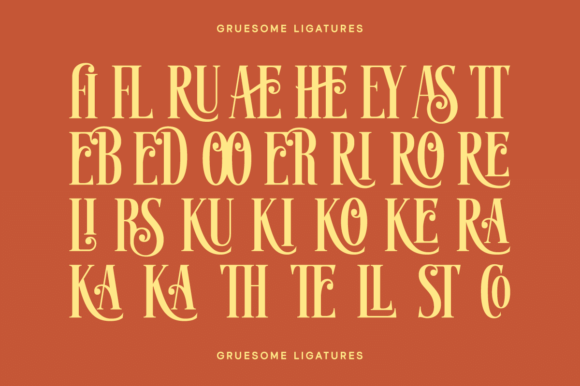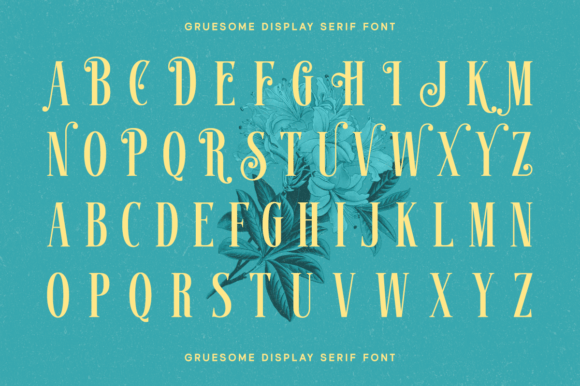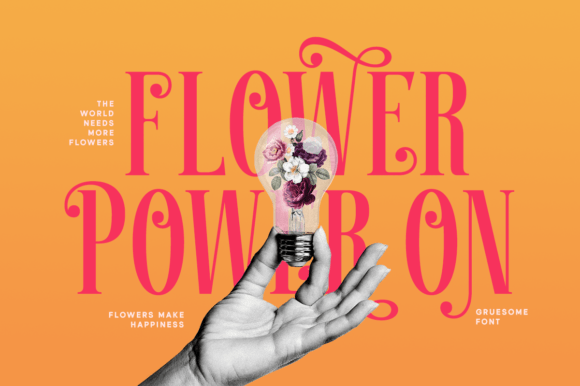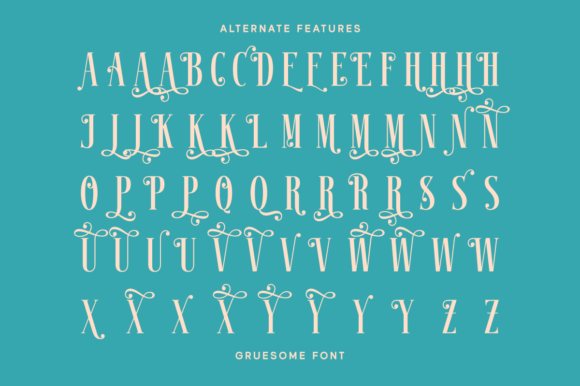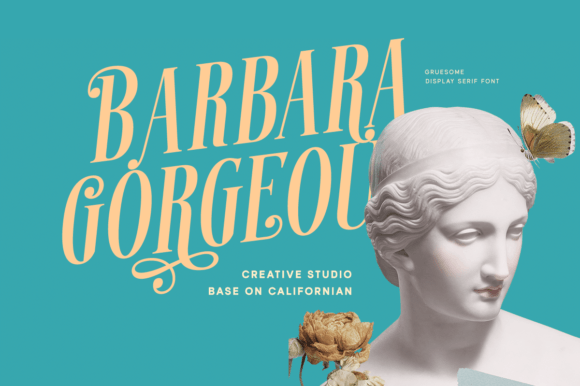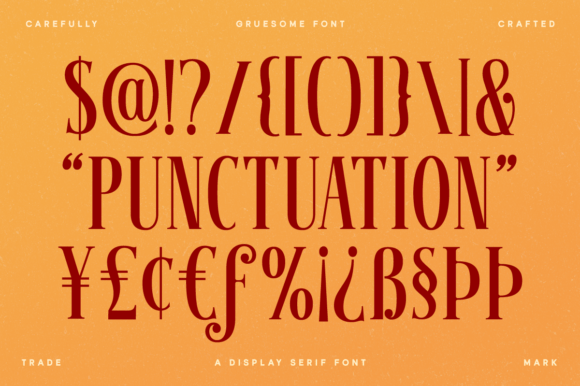
Introducing Gruesome: A Vintage-Inspired Serif Font for Creative Projects
In the world of typography, a font can make or break a design. For designers and crafters looking for a unique and eye-catching serif font, look no further than Gruesome. This stunning font boasts vintage looks, complete with stylistic alternates and ligatures that make it truly one-of-a-kind. Whether you’re working on a logo, invitation, or advertising campaign, Gruesome is the perfect choice for adding a touch of elegance and sophistication.
What Sets Gruesome Apart
Gruesome is more than just a font – it’s an experience. With its classic serif design and vintage flair, this font is sure to transport your audience to a bygone era. The stylistic alternates and ligatures add an extra layer of depth and character, making Gruesome perfect for a wide range of creative projects. From formal invitations and wedding cards to fashion labels and packaging, Gruesome is the ultimate versatile font.
So what can you use Gruesome for? The possibilities are endless! Here are just a few ideas to get you started:
- Logos: Create a lasting impression with a custom logo that showcases your brand’s personality and style.
- Invitations: Make your guests feel special with beautifully designed invitations that set the tone for your event.
- Labels: Add a touch of sophistication to your product labels and make them stand out on store shelves.
- Magazines and Books: Use Gruesome to add a vintage touch to your publication and make it truly unforgettable.
- Greeting and Wedding Cards: Create stunning cards that will make your loved ones feel special.
- Packaging: Elevate your product packaging with a font that’s both elegant and eye-catching.
- Fashion and Makeup: Use Gruesome to add a touch of glamour to your fashion or makeup brand.
- Stationery: Create beautiful stationery that reflects your personal style.
- Novels: Give your novel a unique and captivating look with Gruesome.
- Advertising: Make your advertising campaigns truly unforgettable with a font that’s sure to grab attention.
Why Choose Gruesome?
With so many fonts to choose from, why should you choose Gruesome? Here are just a few reasons:
- Unique Design: Gruesome’s vintage-inspired design sets it apart from other serif fonts.
- Versatility: Use Gruesome for a wide range of creative projects, from formal invitations to advertising campaigns.
- Elegance: Add a touch of sophistication and elegance to your designs with Gruesome.
- Easy to Read: Despite its ornate design, Gruesome is easy to read and perfect for body text.
Tips for Using Gruesome
To get the most out of Gruesome, here are a few tips:
- Experiment with Stylistic Alternates: Take advantage of Gruesome’s stylistic alternates to add variety to your designs.
- Use Ligatures: Use Gruesome’s ligatures to add an extra layer of sophistication to your designs.
- Pair with Other Fonts: Experiment with pairing Gruesome with other fonts to create a unique look.
- Play with Size and Color: Don’t be afraid to experiment with different sizes and colors to make your design pop.
In conclusion, Gruesome is a versatile and elegant serif font that’s perfect for designers and crafters looking to add a touch of vintage sophistication to their creative projects. With its unique design, stylistic alternates, and ligatures, Gruesome is sure to make your designs stand out. Whether you’re working on a logo, invitation, or advertising campaign, Gruesome is the ultimate choice for adding a touch of elegance and sophistication.